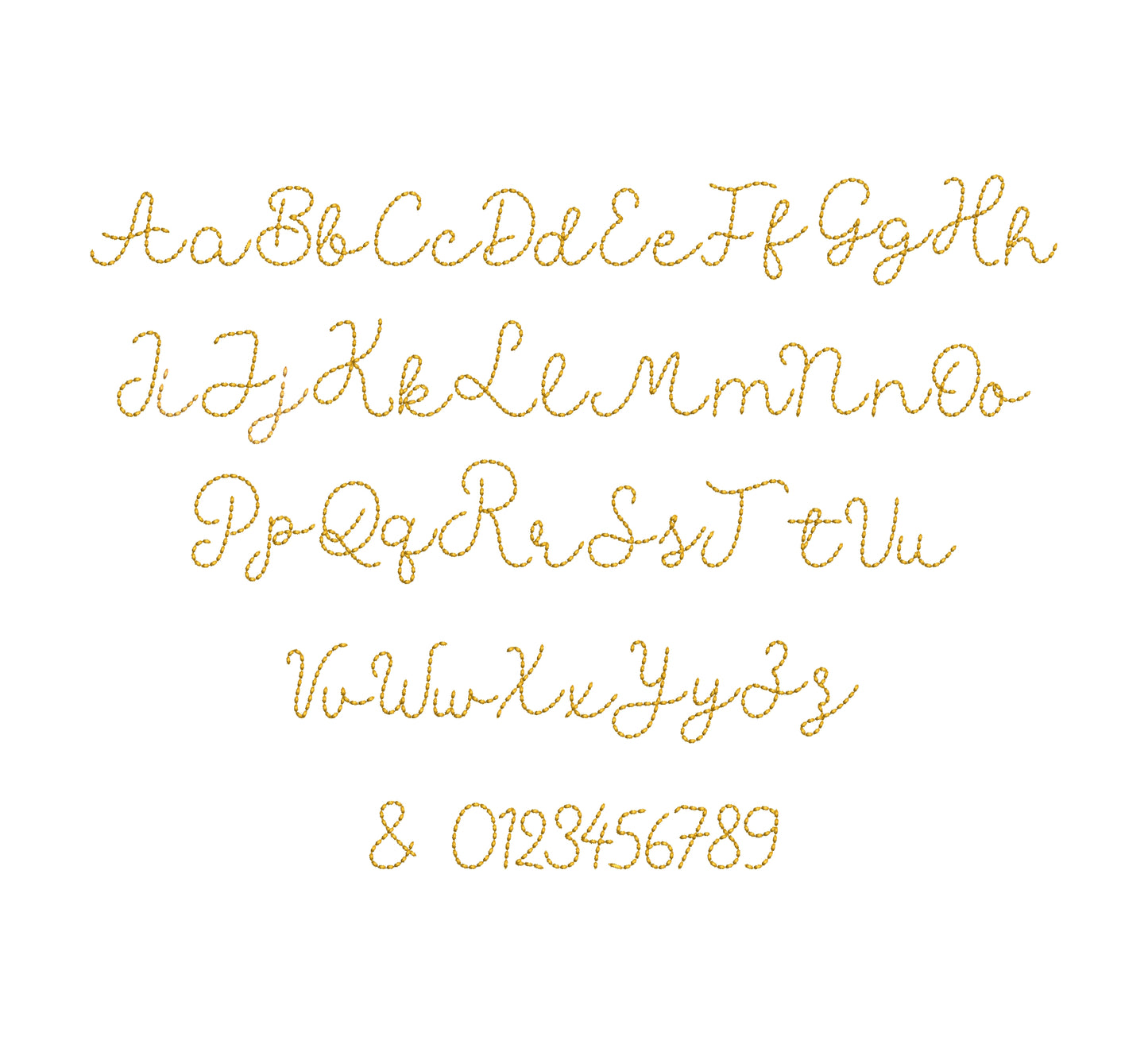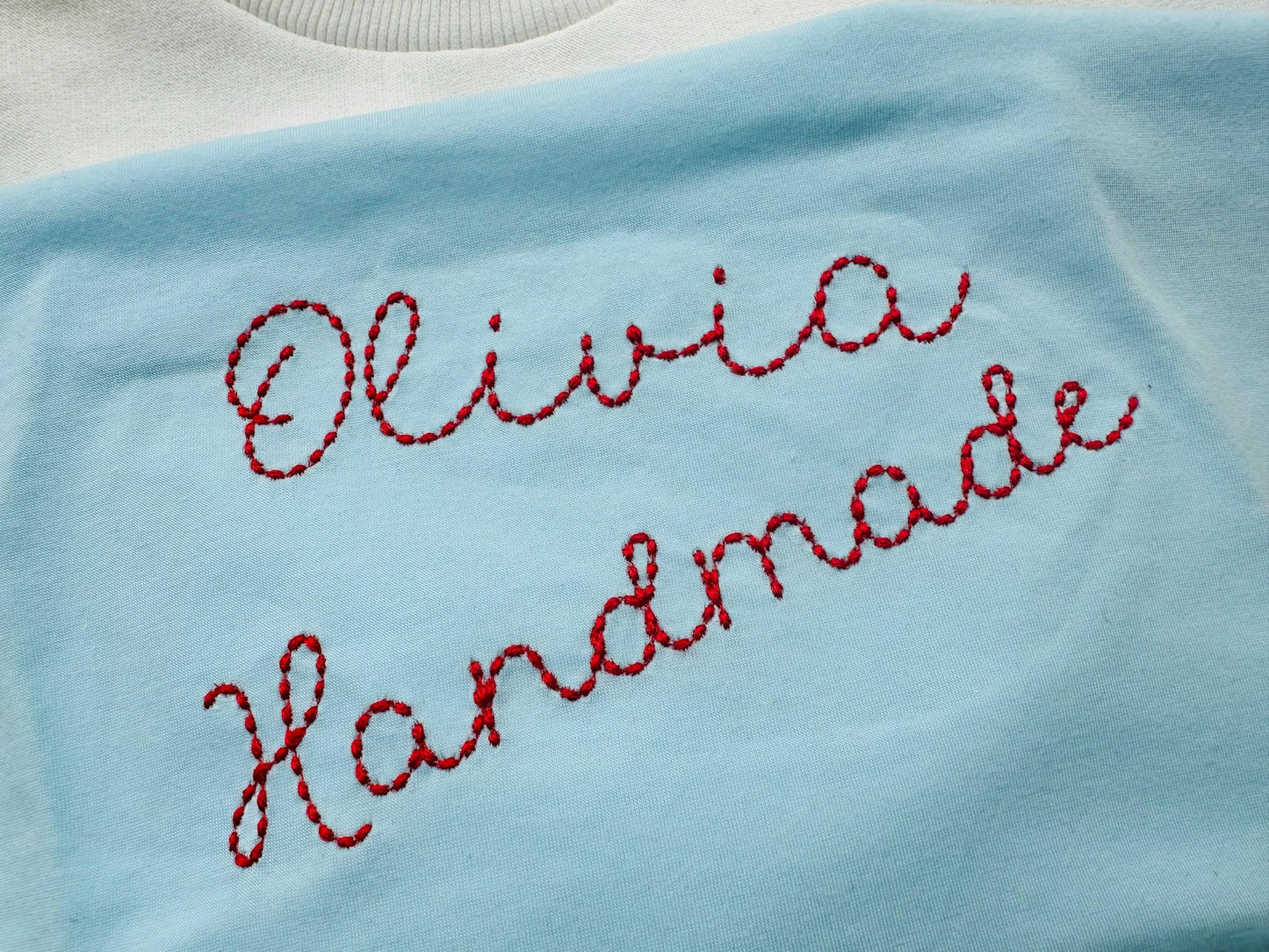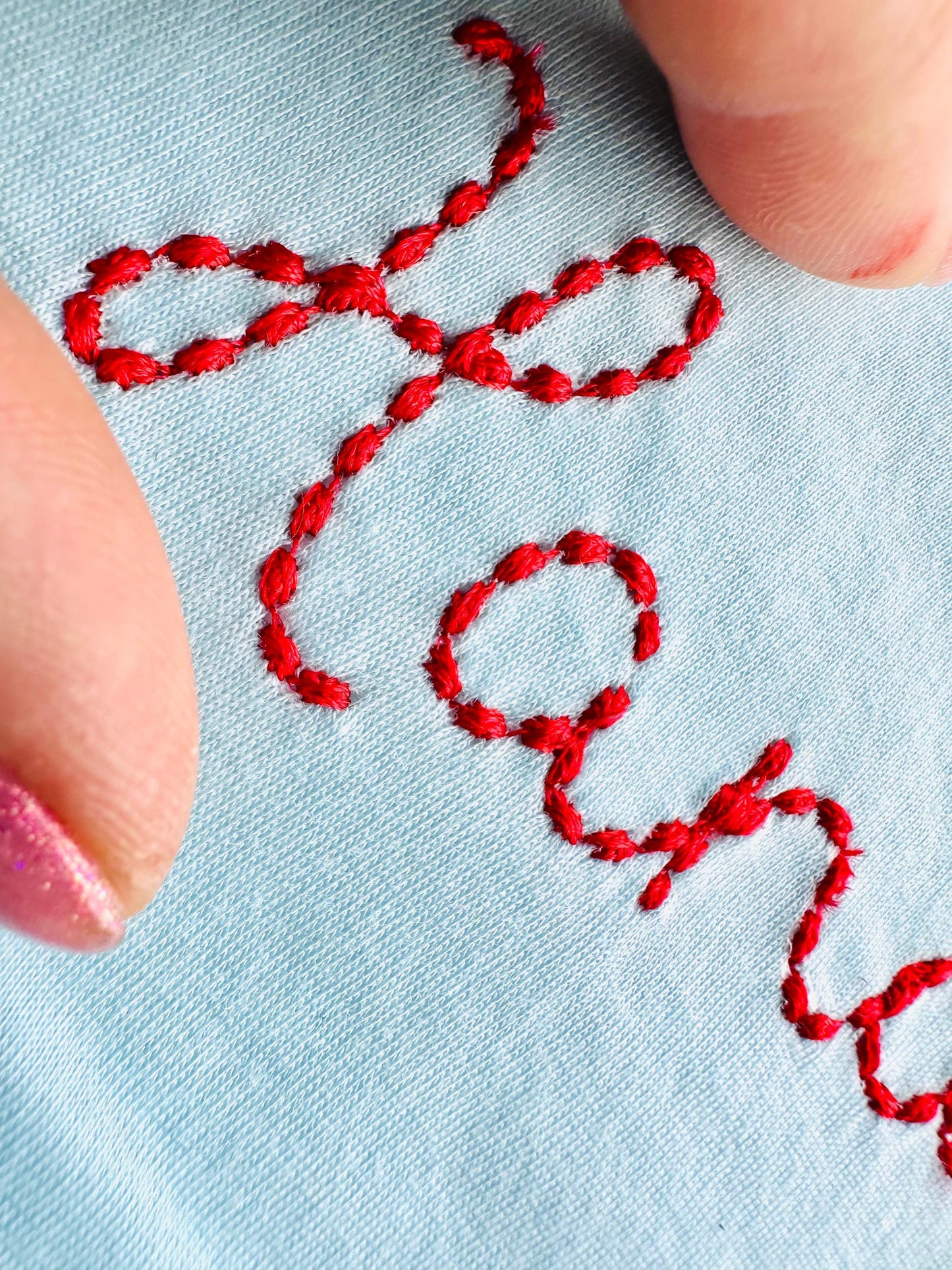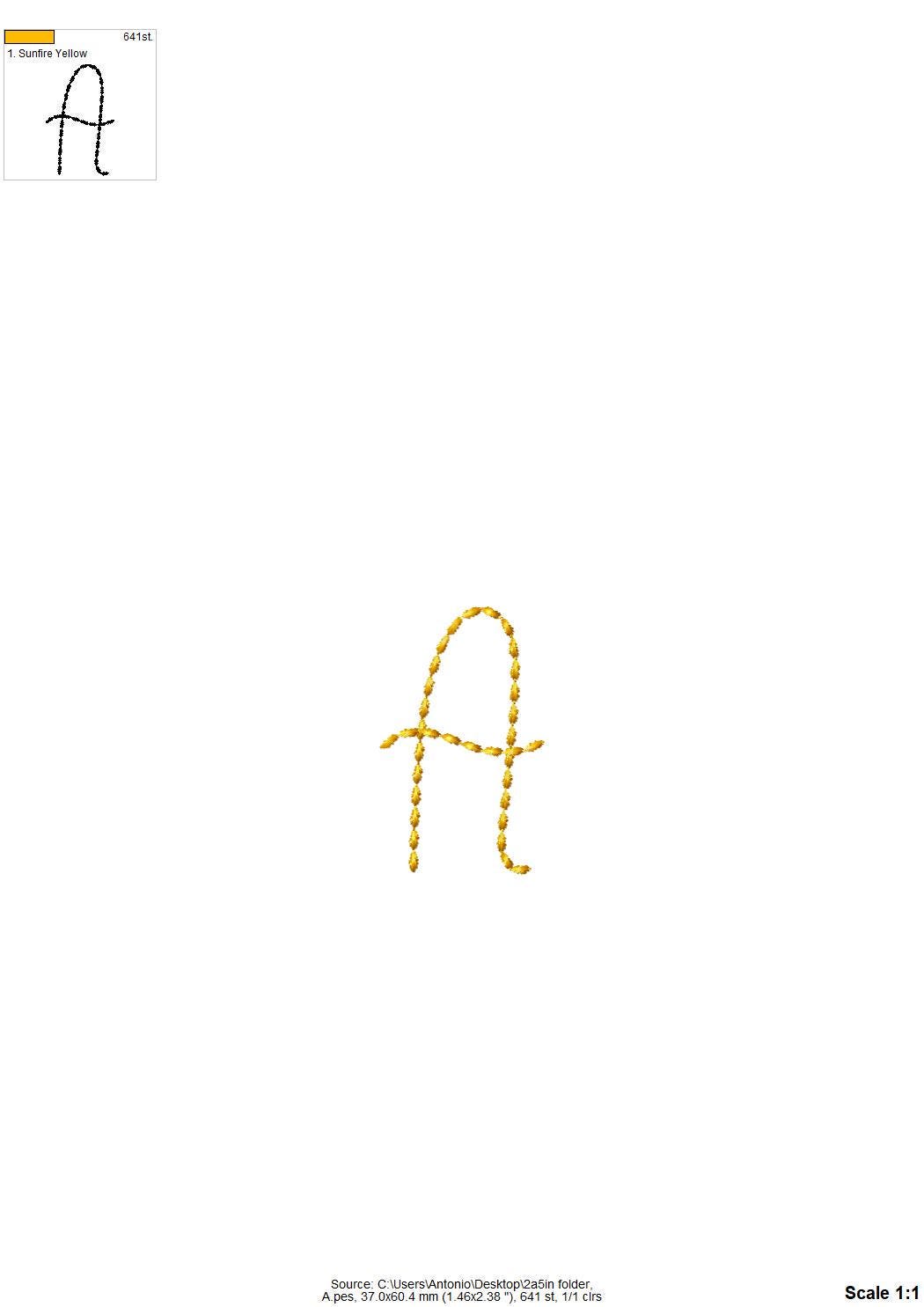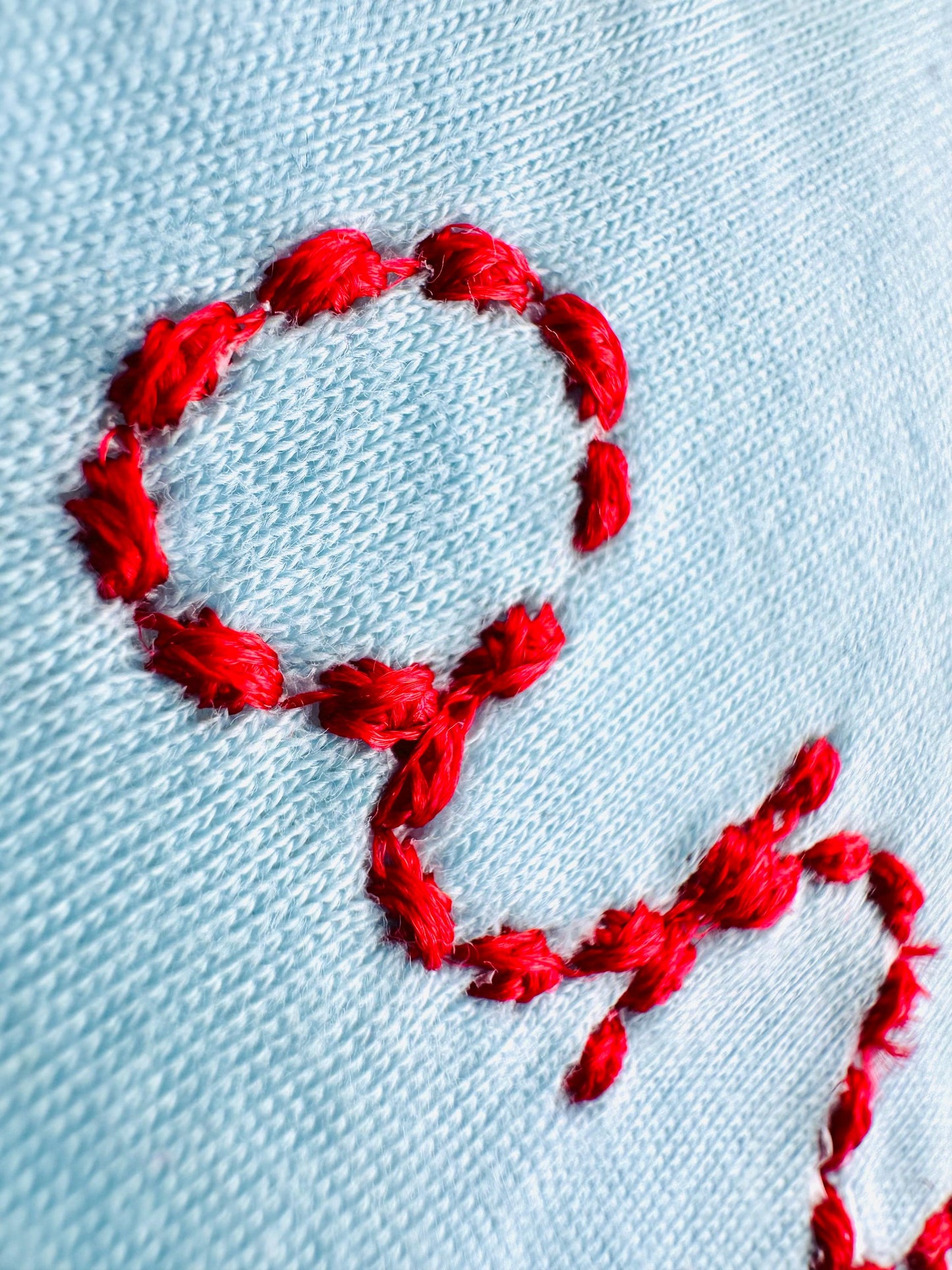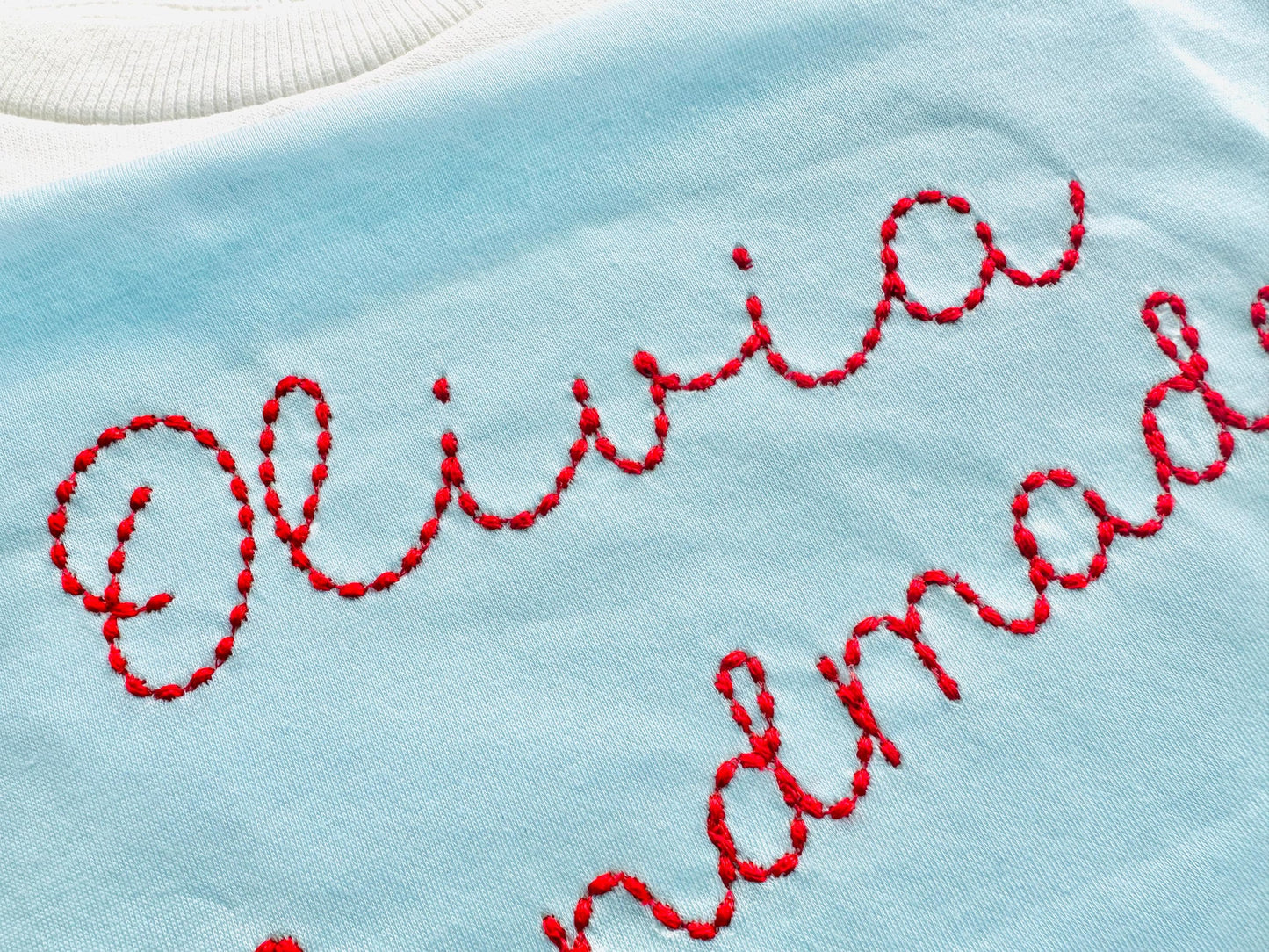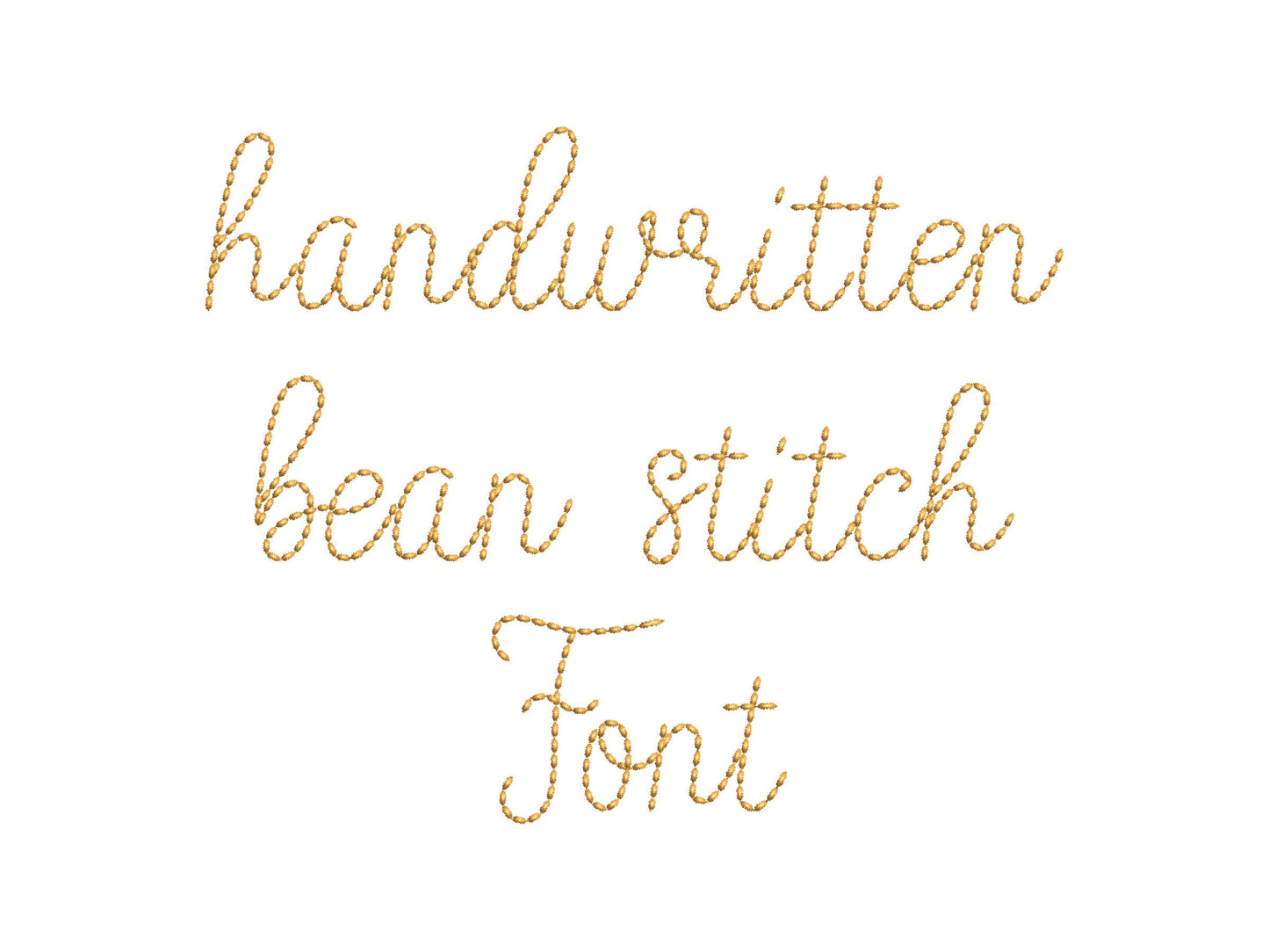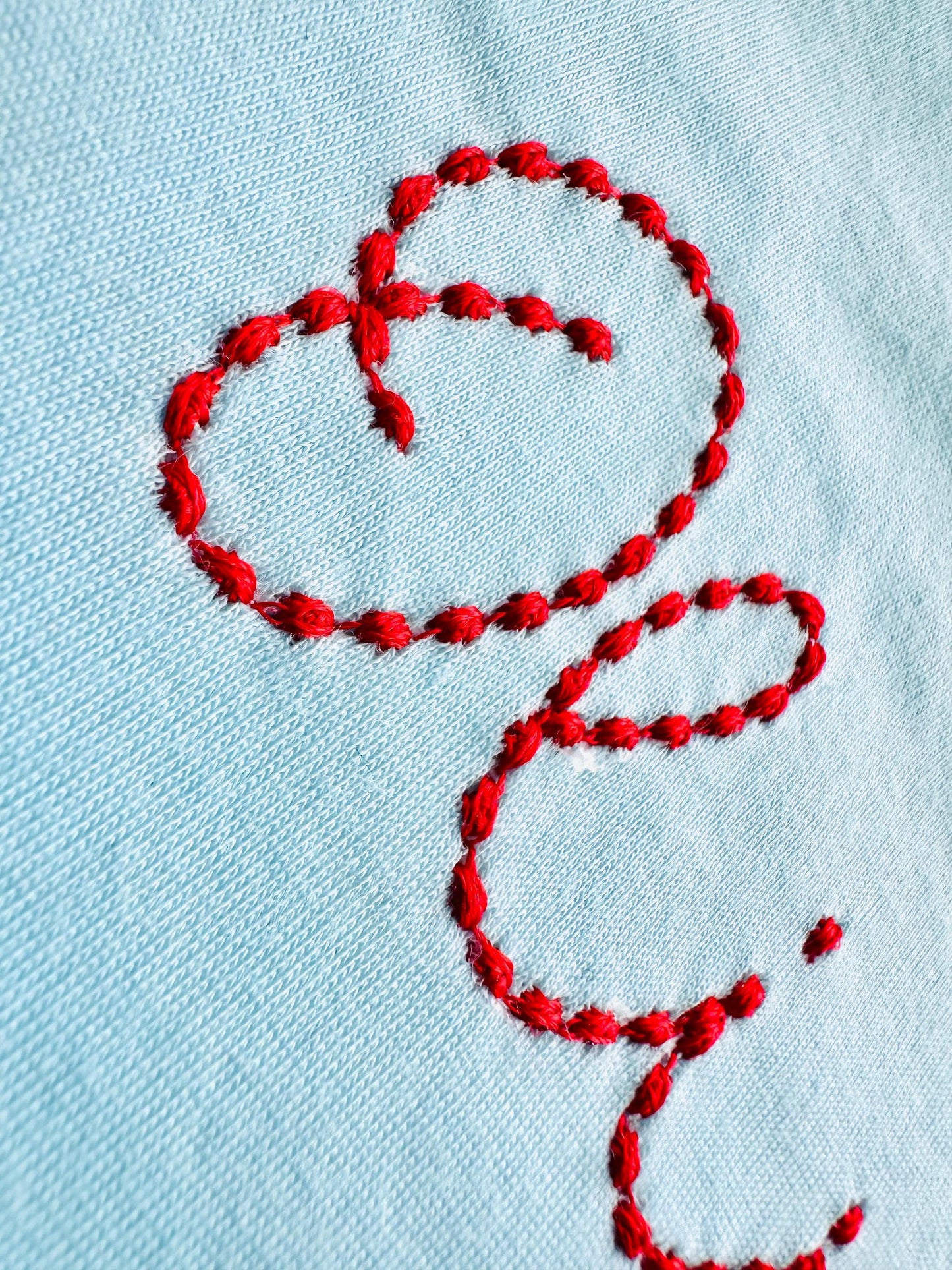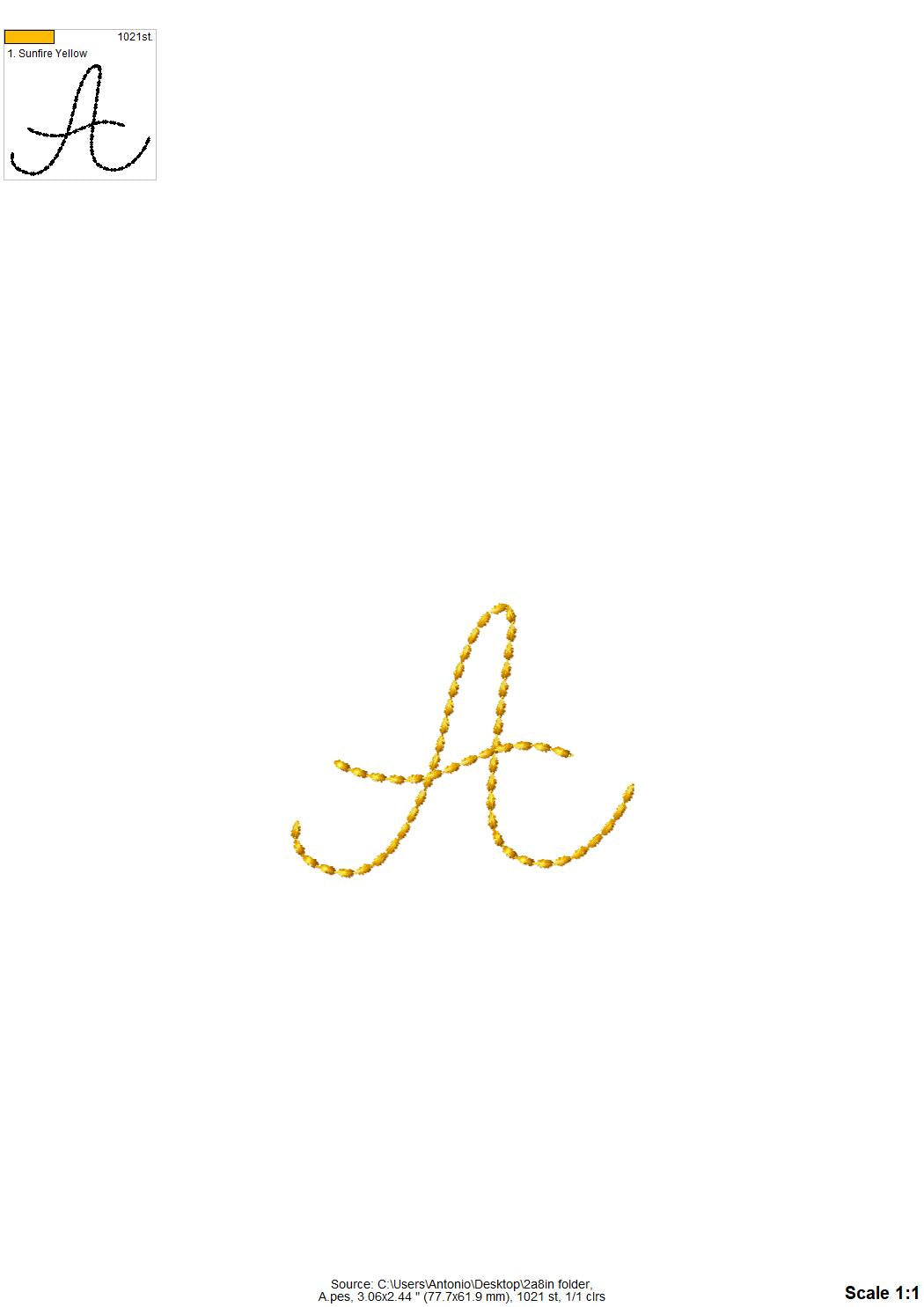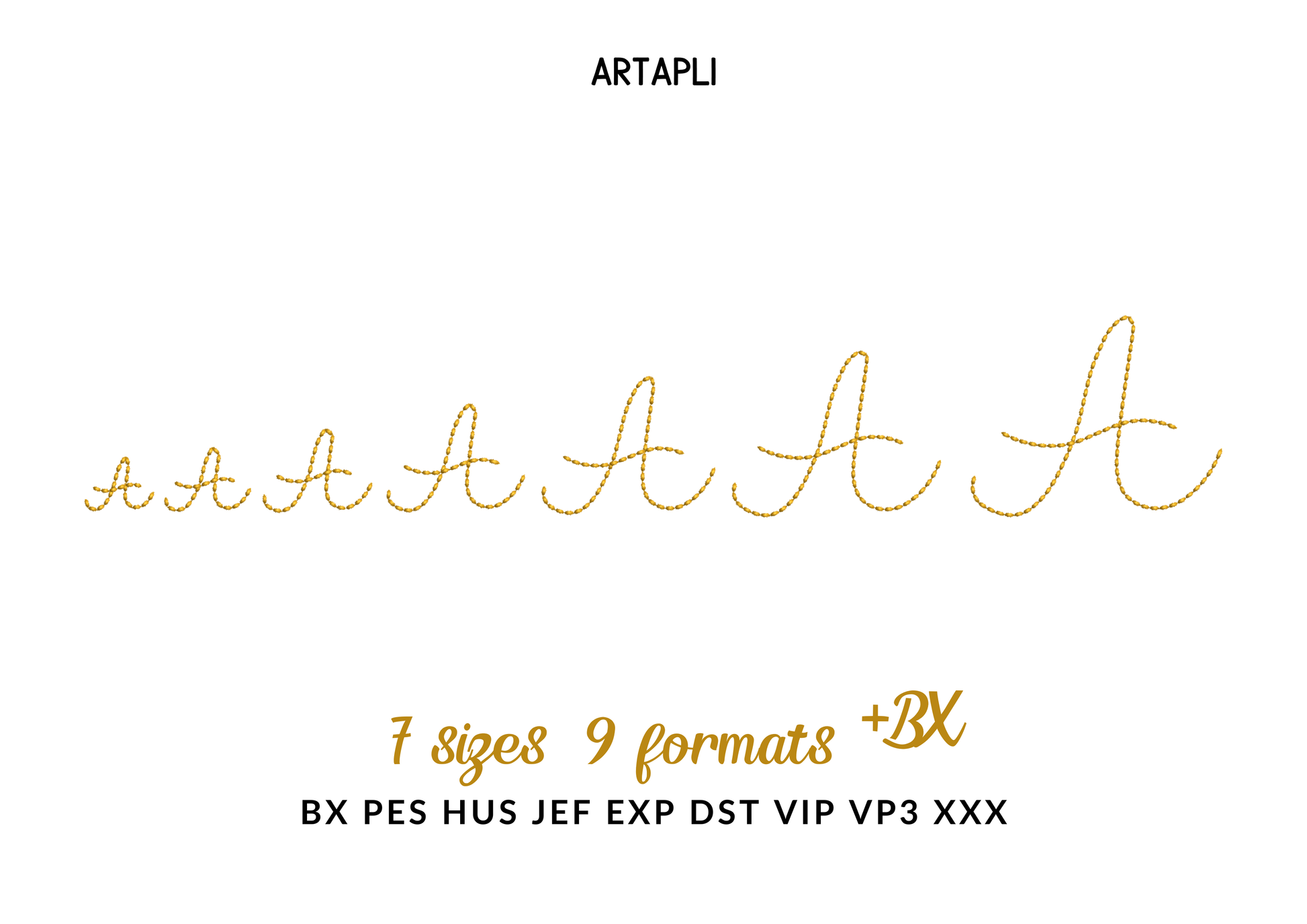
Or click to open the linkA handwritten script with a hand-stitched bean stitch look. Lovely for names, monograms and words on shirts, towels and gifts.
Uppercase and lowercase letters, numbers 0 to 9, an ampersand and an @ sign. Seven sizes: 1, 1.4, 1.8, 2.2, 2.8, 3.3 and 4 inches.